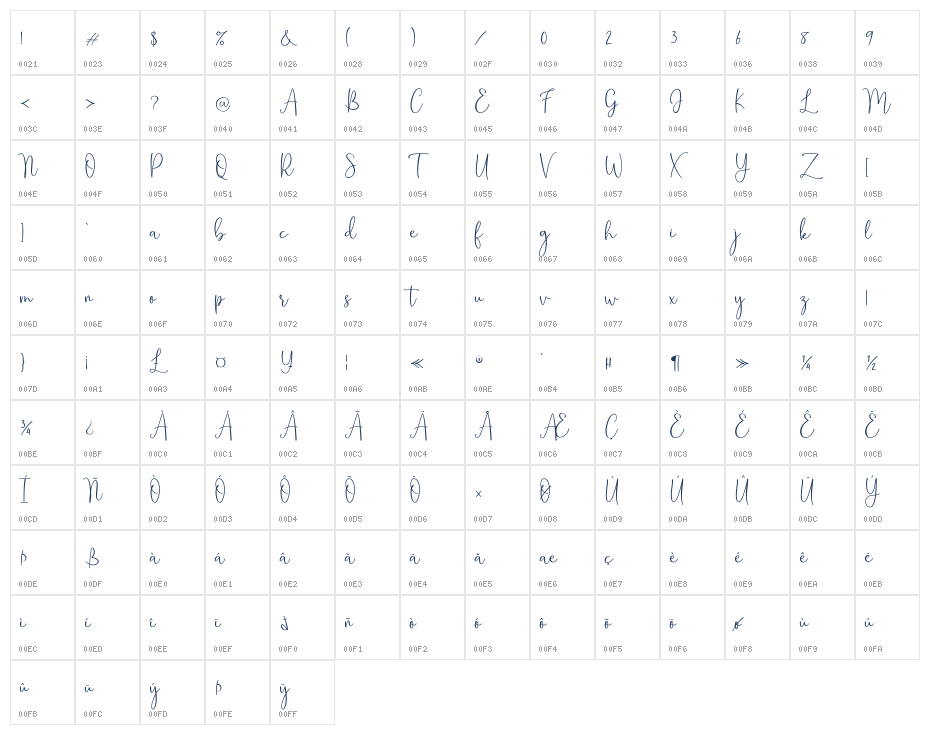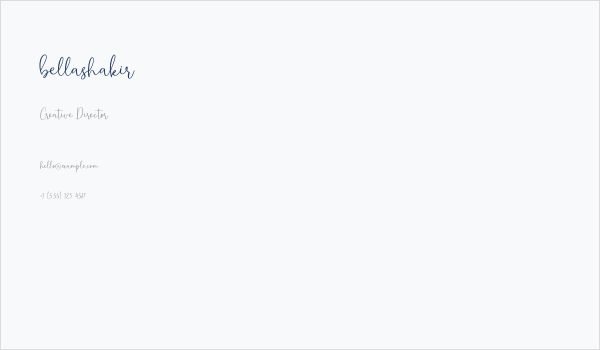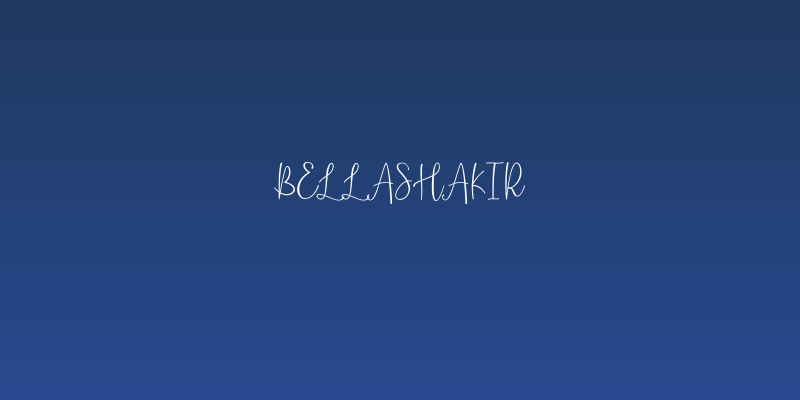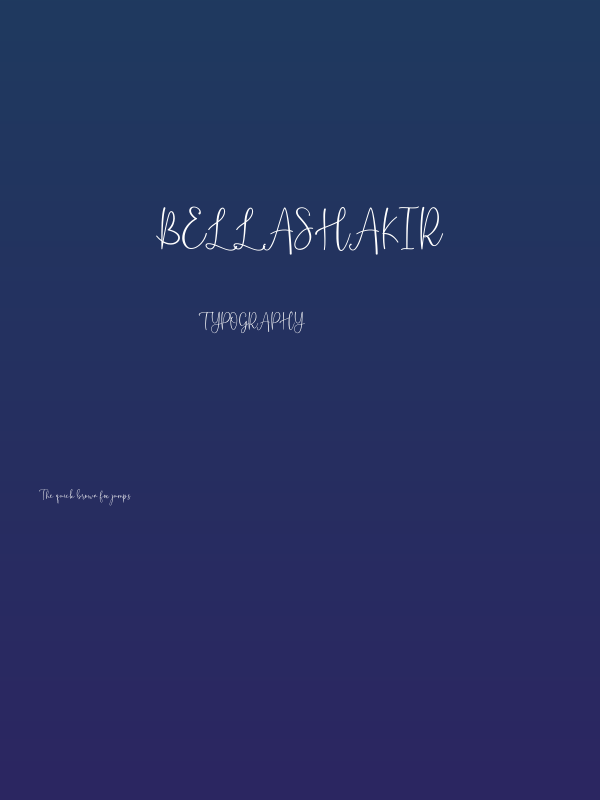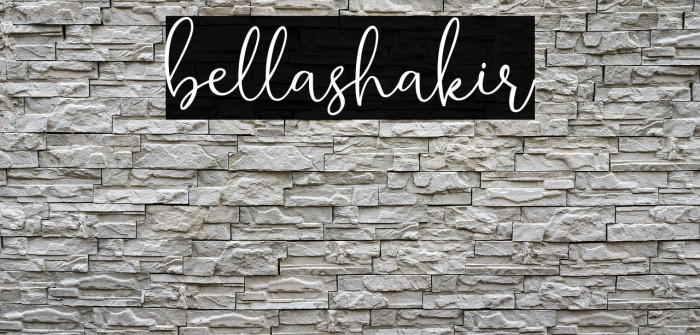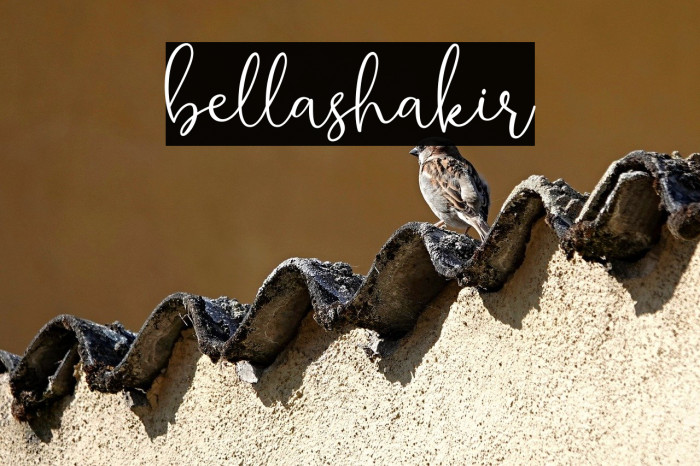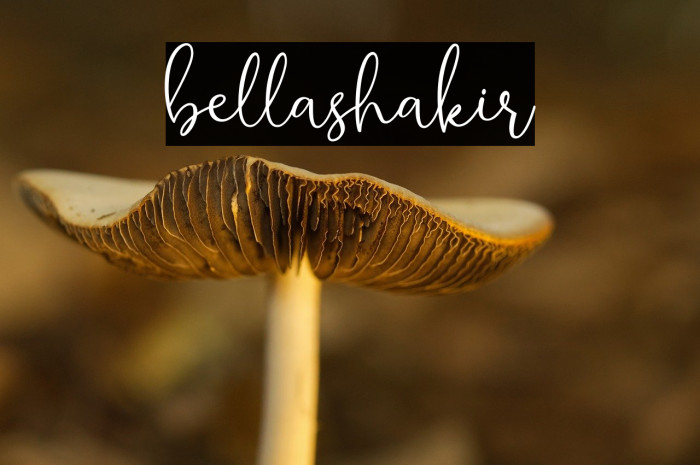
bellashakir Font
bellashakir Description
A handwritten, cursive script font with a casual, elegant style featuring thin, flowing lines and a slightly playful appearance.
| Overall Style | Casual, Elegant, Handwritten |
| Use Case | Personal projects, Invitations, Quotes, Logos |